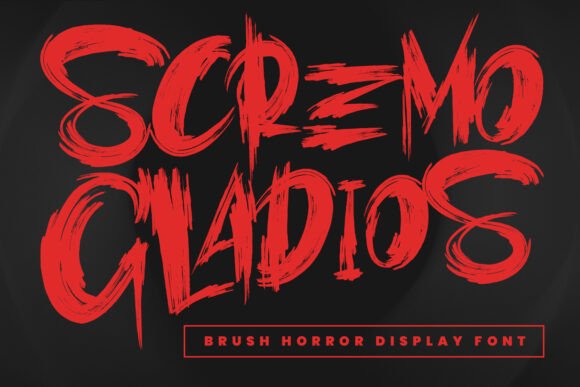
Scremo Gladios Font: Elevate Your Designs with an Authentic Brush Handcrafted Feel
In the world of graphic design, fonts play a crucial role in conveying the tone and personality of a brand or creative project. When it comes to adding a touch of authenticity and uniqueness to your designs, a handcrafted font can make all the difference. This is where the Scremo Gladios Font comes into play, offering a distinctive brush script style that can instantly elevate your visual creations. In this article, we’ll delve into the features and benefits of the Scremo Gladios Font, exploring how it can be used to give your designs an authentic, handcrafted feel.
What is Scremo Gladios Font?
The Scremo Gladios Font, specifically the Scremo Gladios Brush Horror Display Font, is a unique typeface designed to mimic the look and feel of brush script. This font is perfect for designers looking to add a personal touch to their work, creating a sense of warmth and authenticity that is often lost with more conventional fonts. The Scremo Gladios Font is versatile and can be used across various design projects, including signatures, stationery, logos, typography quotes, magazine or book covers, website headers, flyers, clothing, branding, and packaging design.
Key Features of Scremo Gladios Font
- Authentic Brush Script Style: The Scremo Gladios Font boasts an authentic brush script style, giving your designs a handcrafted feel that stands out.
- Versatility: Its versatility makes it suitable for a wide range of design projects, from digital to print.
- Easy to Use: Designed to be user-friendly, the Scremo Gladios Font can be easily integrated into your design workflow.
- High-Quality Design: Crafted with attention to detail, this font ensures high-quality visuals that can be scaled up or down without losing clarity.
Benefits of Using Scremo Gladios Font
The Scremo Gladios Font offers several benefits to designers and brands looking to create unique and impactful designs. Some of the key advantages include:
- Uniqueness: In a sea of generic fonts, the Scremo Gladios Font helps your designs stand out with its distinctive look.
- Emotional Connection: The handcrafted feel of this font can create an emotional connection with your audience, making your message more relatable.
- Brand Identity: Using a unique font like Scremo Gladios can contribute significantly to building a strong brand identity.
- Time-Saving: With its comprehensive design, you can save time on design processes, focusing more on creativity and less on font customization.
How to Use Scremo Gladios Font in Your Designs
Tips for Effective Use
- Pair with Complementary Fonts: For optimal results, pair the Scremo Gladios Font with fonts that complement its style, enhancing readability and visual appeal.
- Experiment with Colors: Take advantage of the font’s brush script style by experimenting with different colors and textures that match your brand’s aesthetic.
- Consider Context: Tailor your use of the Scremo Gladios Font to the specific context of your design, ensuring it aligns with the message and audience.
- Play with Sizes: Don’t be afraid to vary the font size to create visual hierarchy and emphasize key messages.
Who Can Benefit from Scremo Gladios Font?
The Scremo Gladios Font is a valuable resource for a wide range of professionals and projects, including:
- Graphic Designers: Looking to add a personal touch to their designs.
- Brands: Aiming to create a unique visual identity.
- Stationery and Packaging Designers: Seeking to create custom, handcrafted looks.
- Web Designers: Wanting to add character to website headers and typography.
- Artists and Crafters: Needing a font that resonates with handmade and artisanal themes.
The Scremo Gladios Font, with its authentic brush handcrafted feel, offers a unique opportunity for designers and brands to elevate their visual creations. Its versatility, combined with its distinctive style, makes it an excellent choice for a wide array of design projects. By incorporating the Scremo Gladios Font into your design toolkit, you can create more impactful, memorable, and engaging visuals that resonate with your audience.